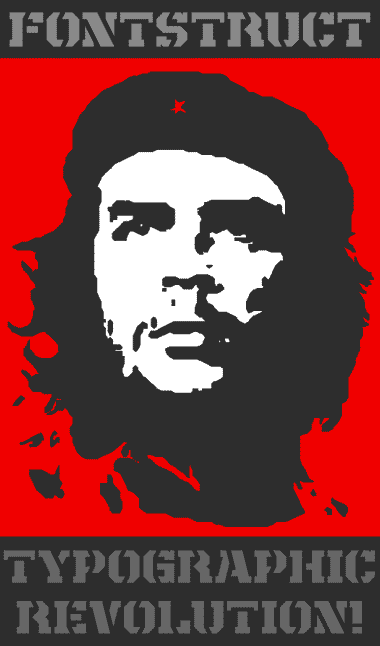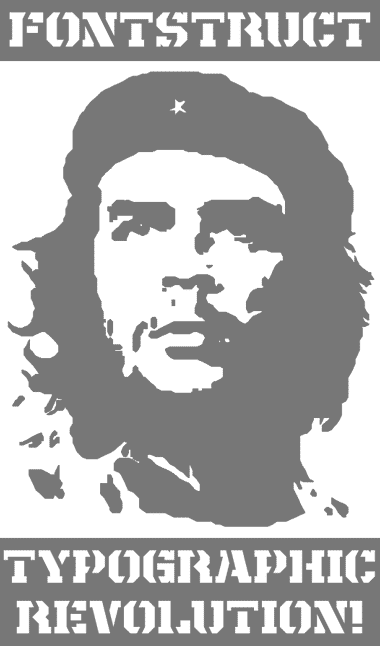
• This is my attempt to create a robust, almost military grade slab serif stencil. The whole project was largely inspired by the music clip bearing the same title by Nathalie Cardone (http://www.youtube.com/watch?v=hqYHeX0i0NU&feature=related). It is a work in progress, glyphs may change in the final version.
Strong, dynamic, distinctive. Well done... again!
cool work !
Cool V and W.
You can picture this strong design branded onto wooden crates (hopefully containing peaceful contents) 10/10
Frodo your are the king of Stencil!!! This one is very elegant and strong at the same time Bravo!
the sample is fantastic. the set is outrageously inspired and executed. you have definitely been on a tear as have many here. the output has been tremendous and of exceeding quality - yours included. i wonder if it has anything to do with mercury being in taurus :) great work, my friend.
Amazing! I love it! I wish I could make something like that! At least half that good!